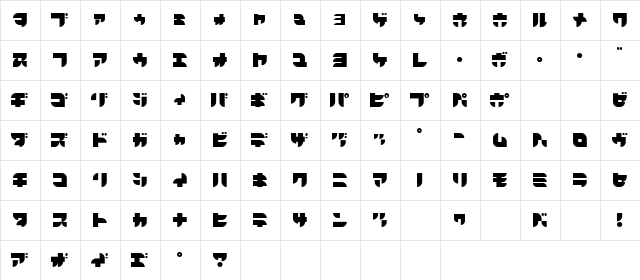
MD Airline KT Regular
Design Context for MD Airline KT Typeface
MD Airline KT offers clean, dependable letterforms without strong stylistic allegiance, making it a practical choice for designers who need flexibility.